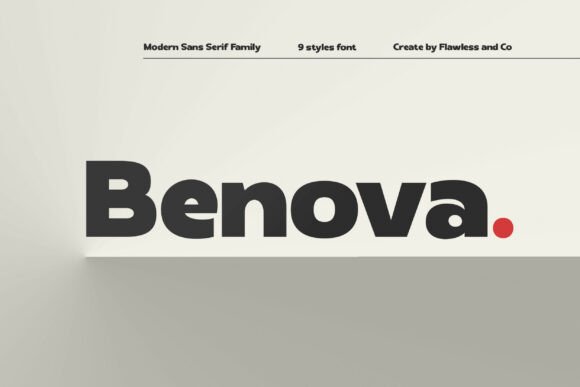
Introducing Benova Font: The Ultimate Modern Sans Serif for Versatile Design Projects
In the world of typography, a font can make all the difference in the success of a design project. A well-crafted font can elevate the visual appeal, enhance readability, and convey the intended message with clarity. Benova Font is one such modern sans serif font family that has been designed with versatility, balance, and bold clarity in mind. In this article, we’ll explore the features, benefits, and applications of Benova Font, and why it’s an excellent choice for your next design project.
What is Benova Font?
Benova Font is a contemporary sans serif font family that comprises 9 carefully crafted styles, ranging from thin to black. Its clean lines, geometric shapes, and excellent legibility make it an ideal choice for both print and digital projects. The font’s modern design gives it a strong and confident voice, perfect for professional branding, corporate identity, editorial layouts, and bold headlines.
Key Features of Benova Font
- 9 Weight Styles: Benova Font offers 9 weight styles, from thin to black, allowing designers to choose the perfect weight for their project.
- Clean Lines and Geometric Shapes: The font features clean lines and geometric shapes, giving it a modern and sleek appearance.
- Excellent Legibility: Benova Font is designed for excellent legibility, making it perfect for body text, headlines, and titles.
- Versatile: The font is versatile and can be used for a wide range of design projects, including branding, advertising, editorial design, and more.
- Contemporary Design: Benova Font has a contemporary design that gives it a strong and confident voice, perfect for professional branding and corporate identity.
Applications of Benova Font
Benova Font is an excellent choice for a wide range of design projects, including:
- Professional Branding: The font’s modern design and bold clarity make it perfect for professional branding and corporate identity.
- Editorial Layouts: Benova Font is ideal for editorial layouts, including magazines, newspapers, and books.
- Digital Projects: The font is optimized for digital use, making it perfect for websites, mobile apps, and digital advertising.
- Print Projects: Benova Font is also suitable for print projects, including brochures, flyers, posters, and more.
Benefits of Using Benova Font
Using Benova Font in your design project offers several benefits, including:
- Improved Readability: The font’s excellent legibility ensures that your text is easy to read, even at small sizes.
- Enhanced Visual Appeal: Benova Font’s modern design and clean lines give your design a sleek and professional appearance.
- Flexibility: The font’s 9 weight styles offer flexibility, allowing you to choose the perfect weight for your project.
- Time-Saving: Benova Font is a versatile font that can be used for a wide range of design projects, saving you time and effort.
Tips for Using Benova Font
Here are some tips for using Benova Font effectively in your design project:
- Choose the Right Weight: Select the perfect weight for your project, from thin to black.
- Use it for Headlines and Body Text: Benova Font is suitable for both headlines and body text, making it a great choice for editorial layouts.
- Pair it with Other Fonts: Experiment with pairing Benova Font with other fonts to create a unique and visually appealing design.
- Adjust the Tracking: Adjust the tracking to ensure that your text is easy to read and visually appealing.
In conclusion, Benova Font is a modern sans serif font family that offers versatility, balance, and bold clarity. Its clean lines, geometric shapes, and excellent legibility make it an ideal choice for both print and digital projects. With its 9 weight styles, contemporary design, and wide range of applications, Benova Font is an excellent addition to any design project.
- What is Benova Font? Benova Font is a modern sans serif font family designed with versatility, balance, and bold clarity in mind.
- How many weight styles does Benova Font offer? Benova Font offers 9 weight styles, ranging from thin to black.
- Is Benova Font suitable for digital use? Yes, Benova Font is optimized for digital use and is perfect for websites, mobile apps, and digital advertising.
- Can I use Benova Font for print projects? Yes, Benova Font is also suitable for print projects, including brochures, flyers, posters, and more.